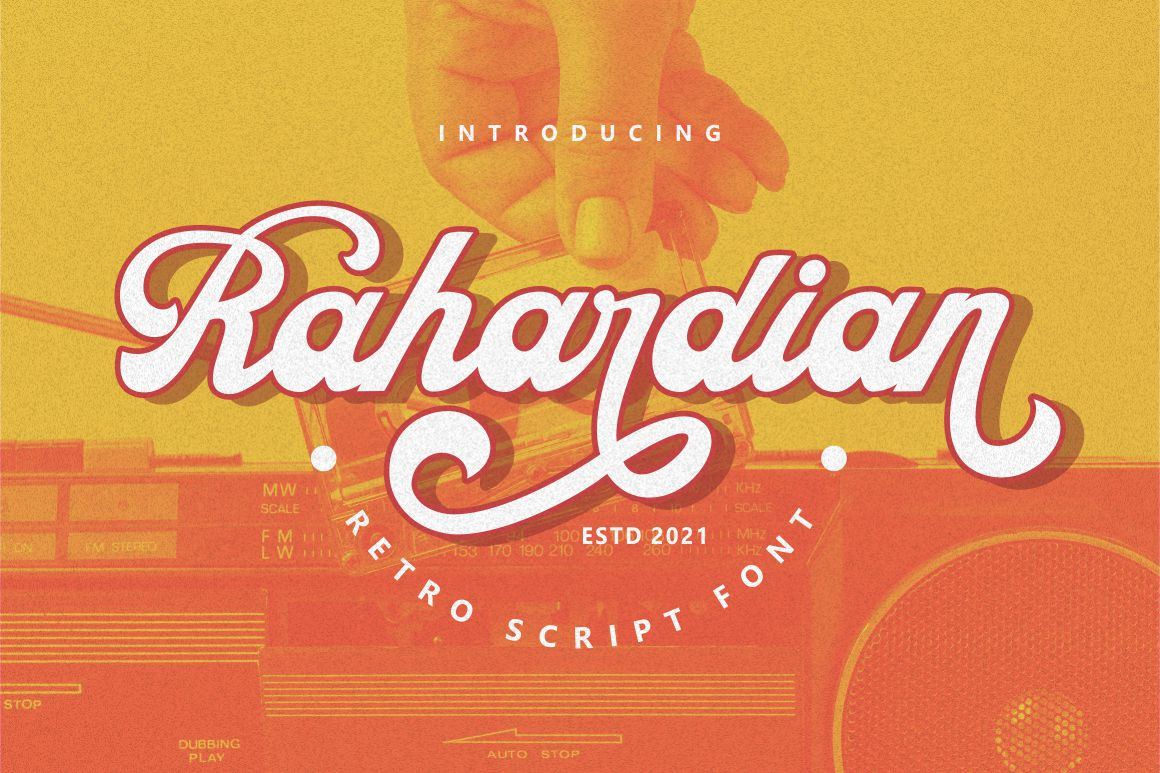
Rahardian - Retro Script Font
Rahardian
Introducing Rahardian a retro script font. A unique font style with classic retro feel. Rahardian is perfect for vintage and retro design, badge, logos,t-shirt, poster, branding, packaging, signage, book coverand so much more!
Come with Opentype feature with a lot of alternates, its help you to make great lettering. This font is also support multi language.
Comes with feature :
- Number, Punctuation And Symbols
- Multilanguage Support.